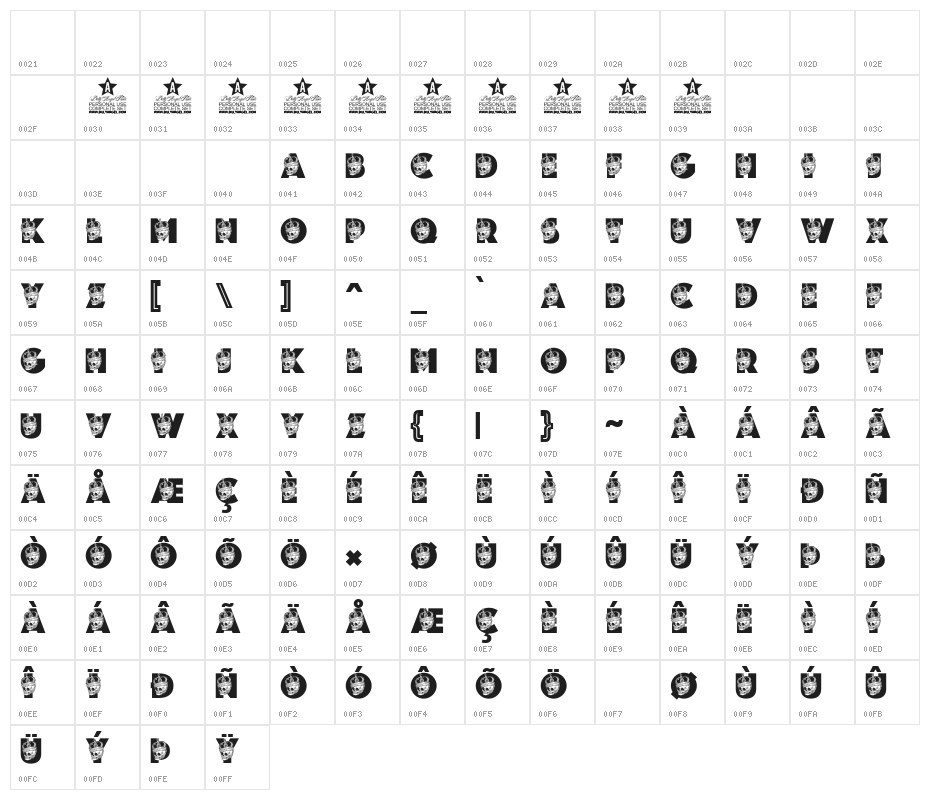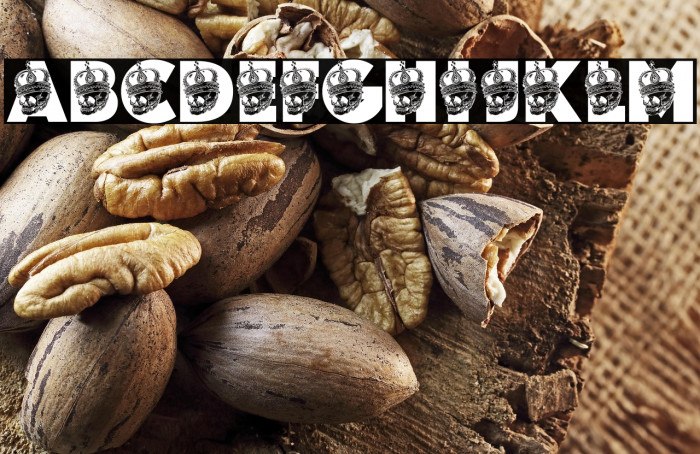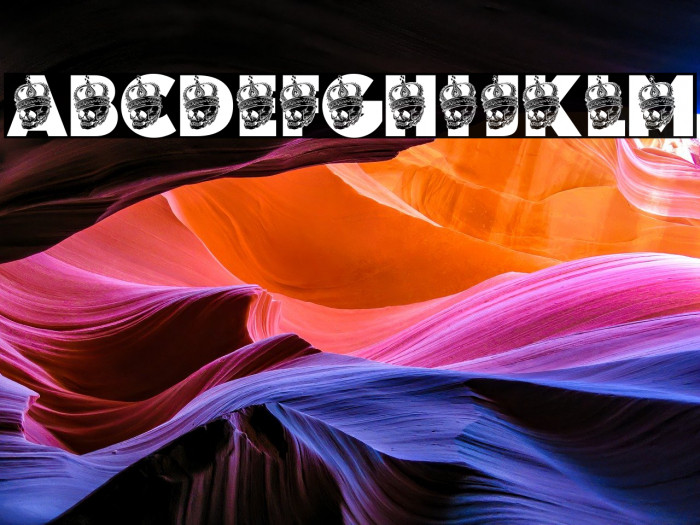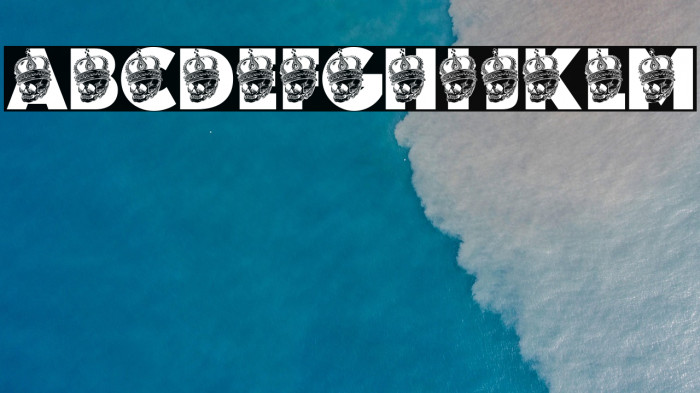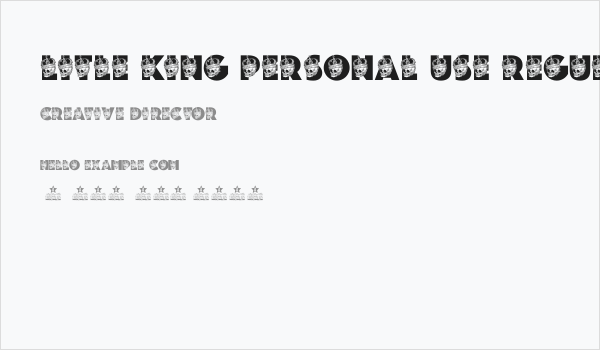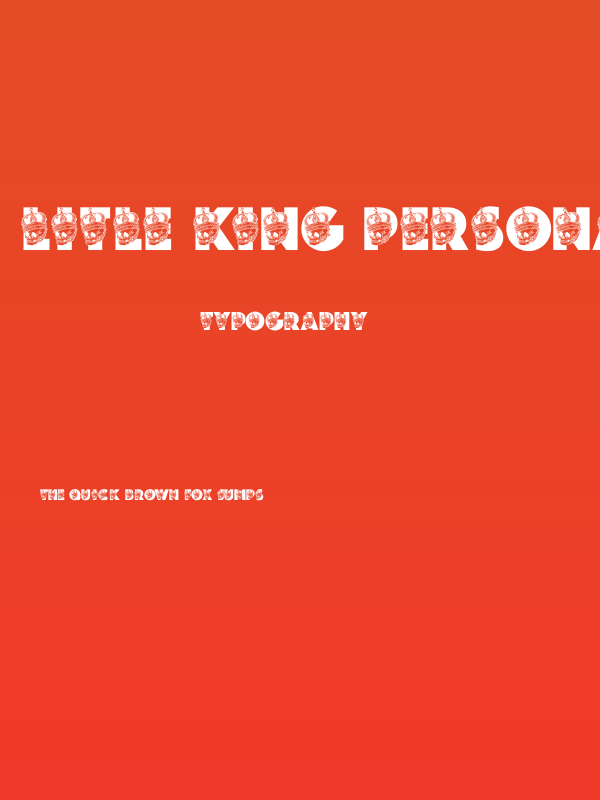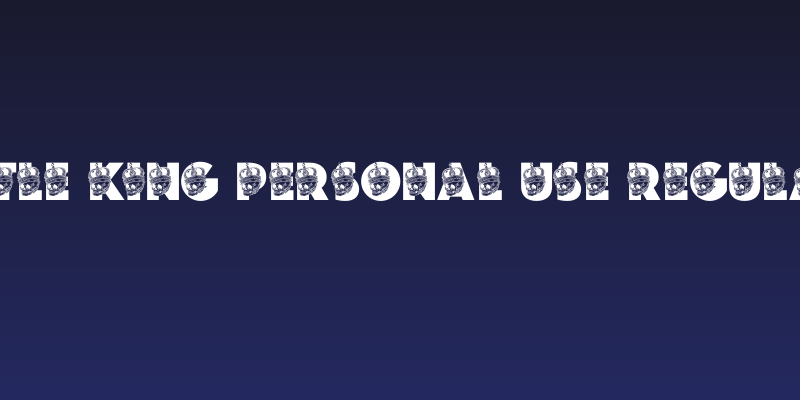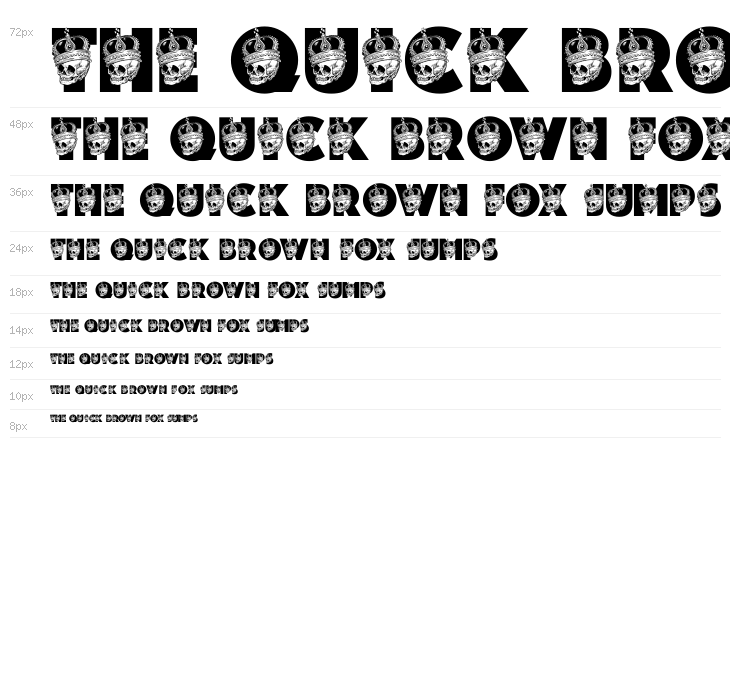
LITLE KING PERSONAL USE Regular Font
LITLE KING PERSONAL USE Regular Description
This font features a bold and striking design, incorporating a unique skull and crown motif within each letter. The uppercase letters are heavily stylized, with a decorative and gothic appearance that stands out prominently. The intricate details of the skull and crown add a layer of complexity and visual interest, making it ideal for attention-grabbing designs. The font's boldness and decorative elements suggest a theme of royalty mixed with a rebellious edge, suitable for projects that require a strong visual impact.
| Overall Style | Decorative, Gothic |
| Proposed Projects | Perfect for album covers, posters, branding for edgy or gothic-themed products, and any project needing a dramatic and bold statement. |